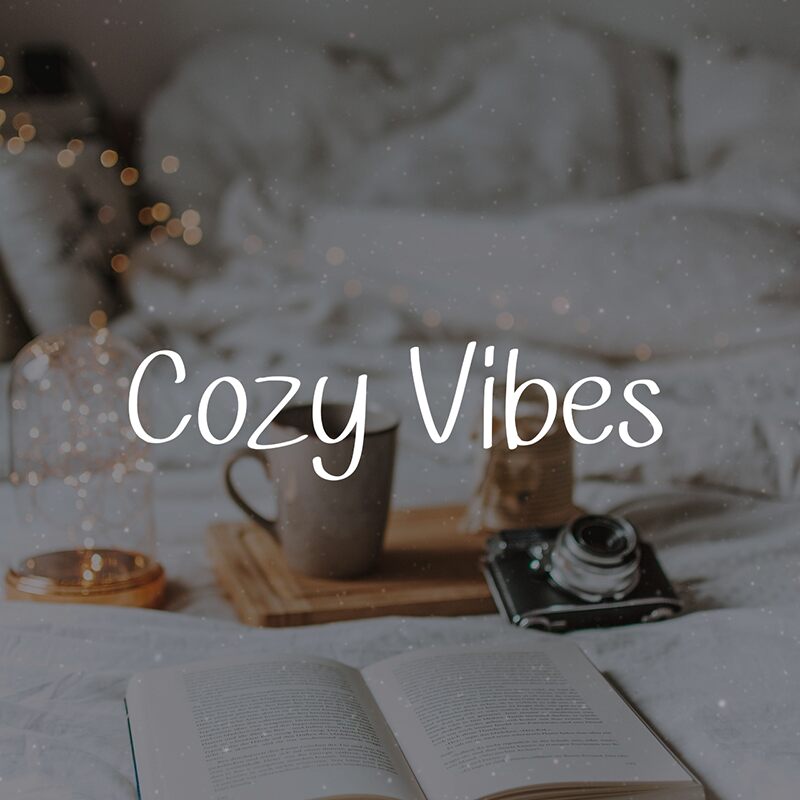
Cozy Vibes
Cozy Vibes font by Soul Vibes is a free handwritten font with a casual and relaxed appearance. Its letters are friendly and approachable, they present a modern aesthetic with a special personal touch that adds character to every word typed using the font.
Use Cozy Vibes for all sorts of creative purposes including titles, labels, packaging designs, branding projects, book covers, invitation cards, social media posts, and album art. It also works on web design elements like banners, buttons, menus items & typography in general.